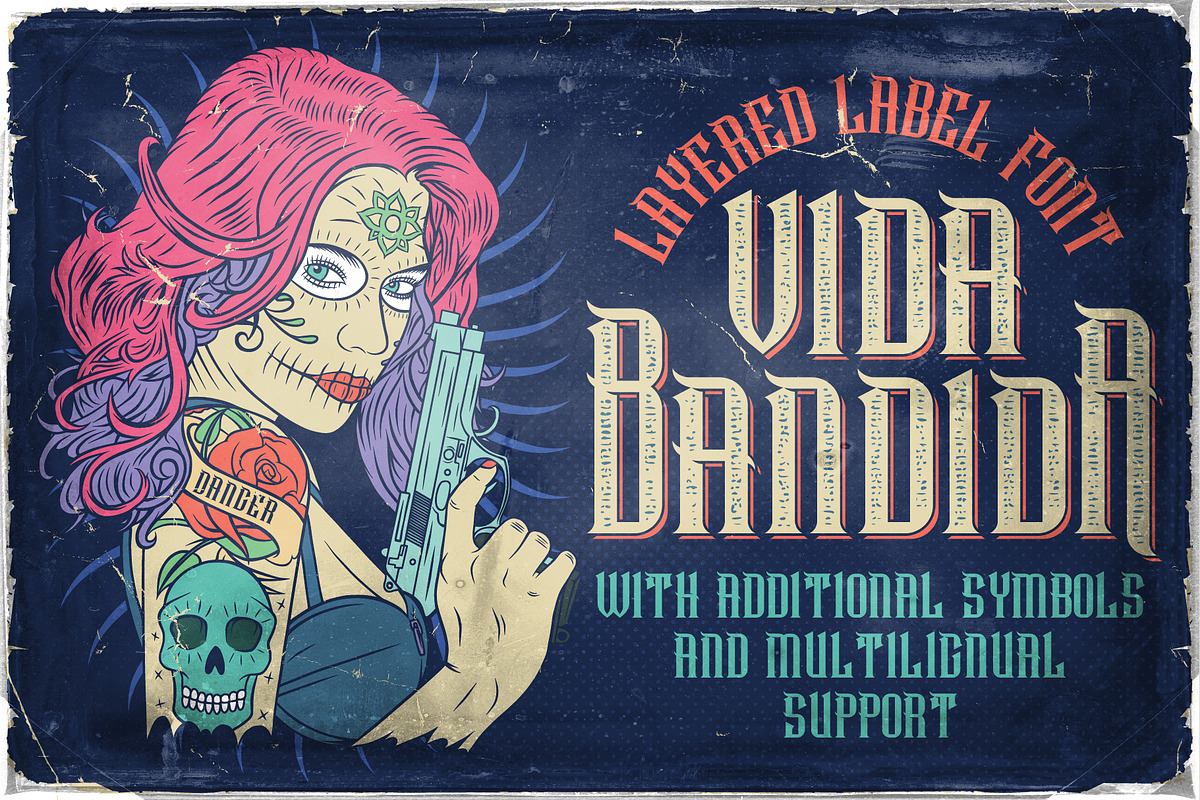
Vida Bandida Font Free Download is a bold, striking typeface designed with an edgy, rebellious aesthetic. Featuring sharp angles and dynamic letterforms, this font is perfect for projects that require a strong visual statement, such as music posters, logos, streetwear branding, and any design that needs a bold, untamed vibe.
Its aggressive, powerful design makes it ideal for urban, alternative, or rock-inspired themes, giving your typography a gritty, tough, and unapologetic feel. Whether you’re creating promotional materials for a concert, a new brand, or a creative event, Vida Bandida will make your design stand out.